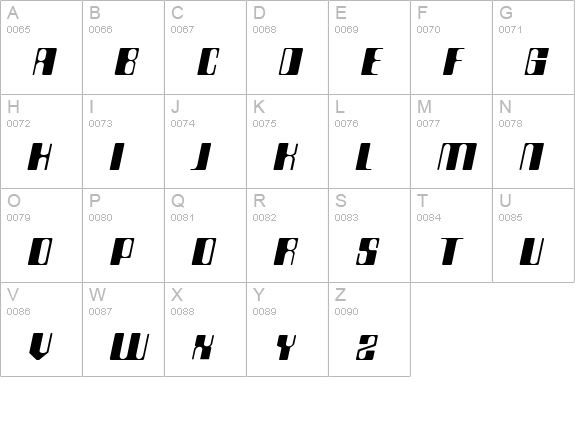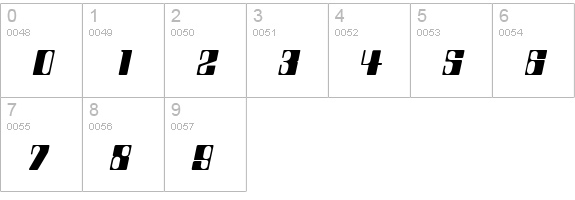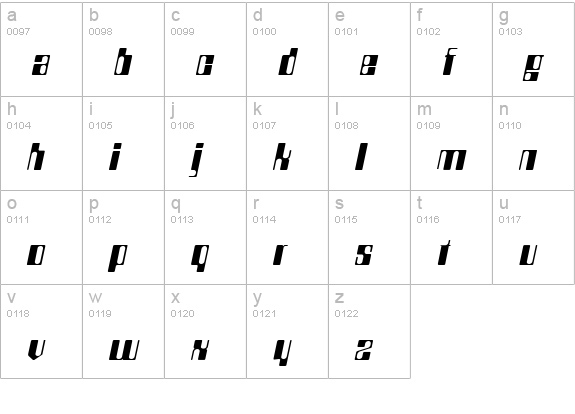
Compstyle Italic is a distinctive, italic variant in the Compstyle typeface family \xE2\x80\x94 well suited to design and typography projects.
Compstyle Italic is a sleek and modern font that exudes sophistication and elegance. Its italicized design adds a touch of flair, making it perfect for a variety of design projects. Whether used for branding, advertising, or creative purposes, Compstyle Italic is sure to make a bold statement. The font features clean lines and a contemporary feel that will elevate any project it is used for. The best part? Compstyle Italic is available for free download at FontsMarket.com. This means that you can easily access this stylish font and incorporate it into your designs without any cost. Don't miss out on this opportunity to enhance your projects with the distinctive charm of Compstyle Italic. Download it today and see the difference it can make in your designs.